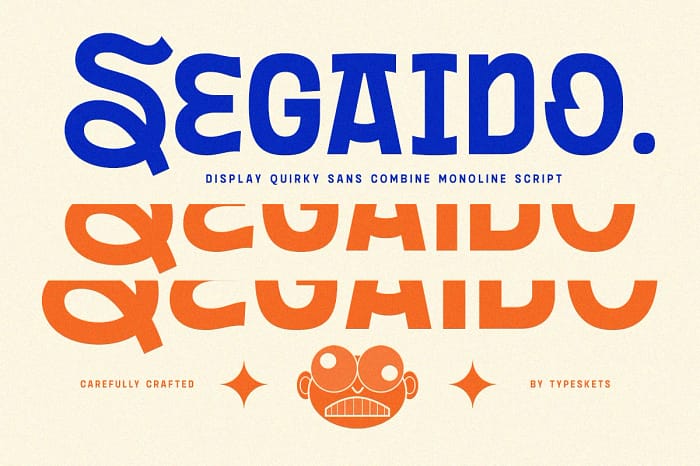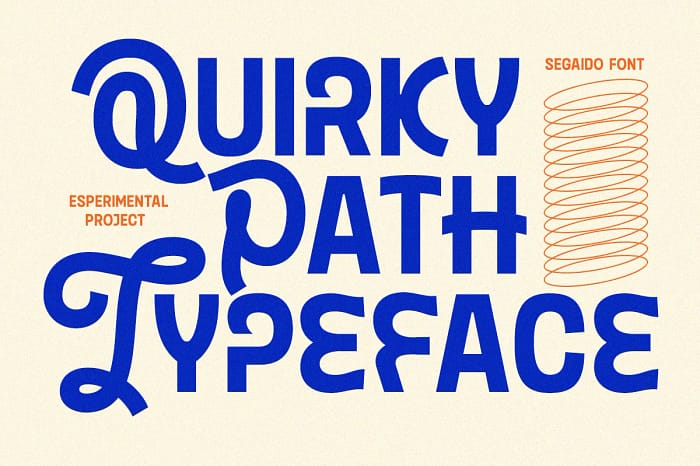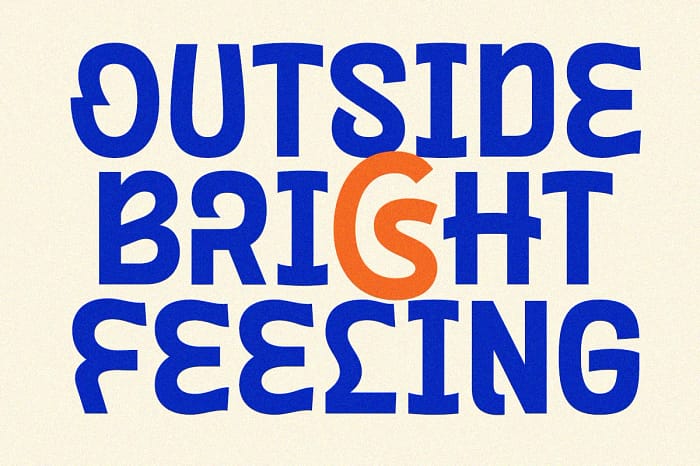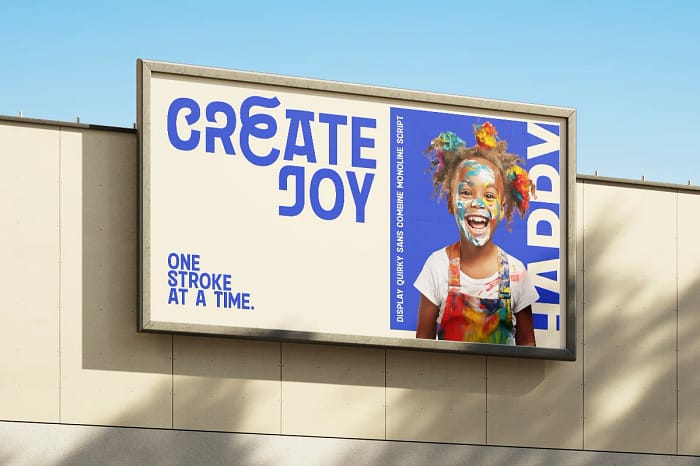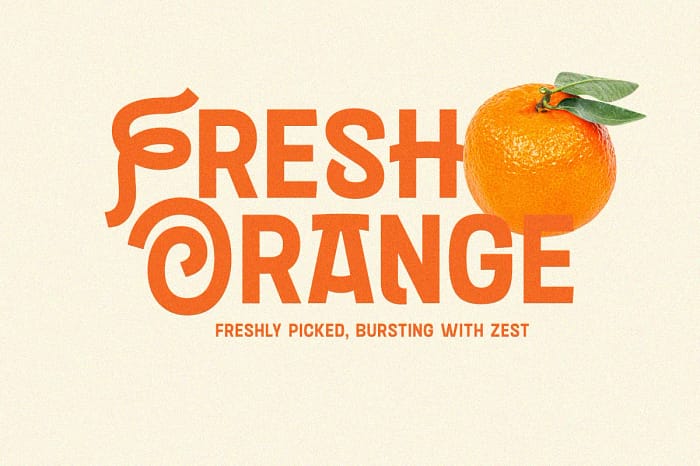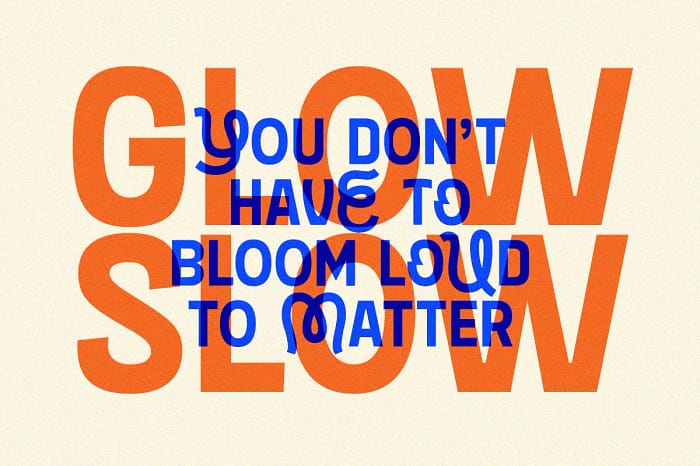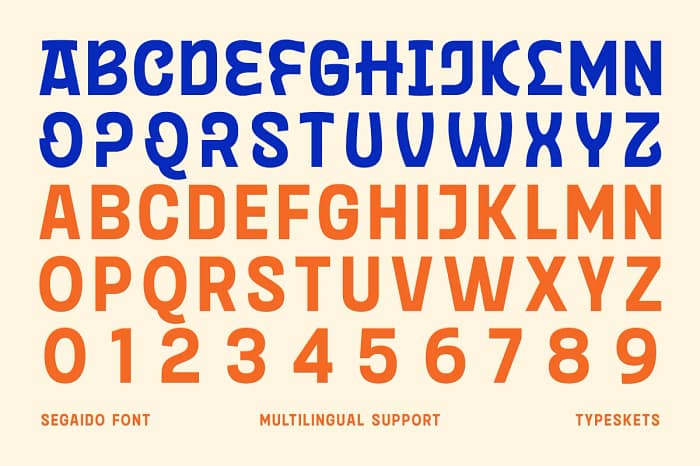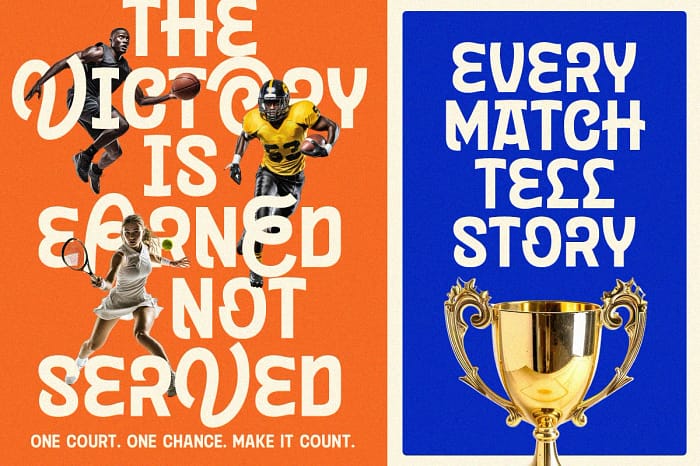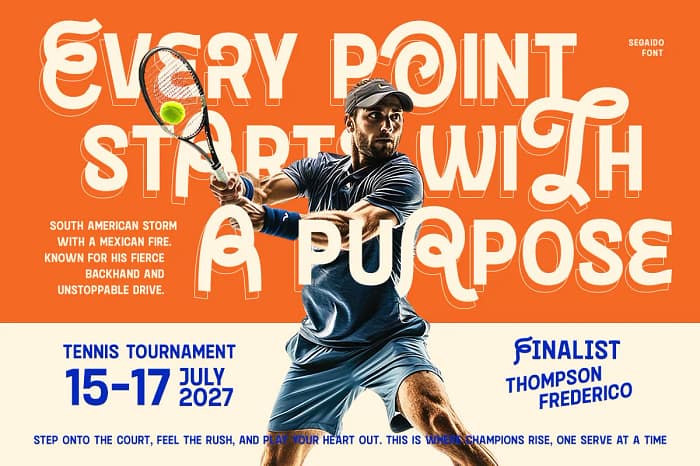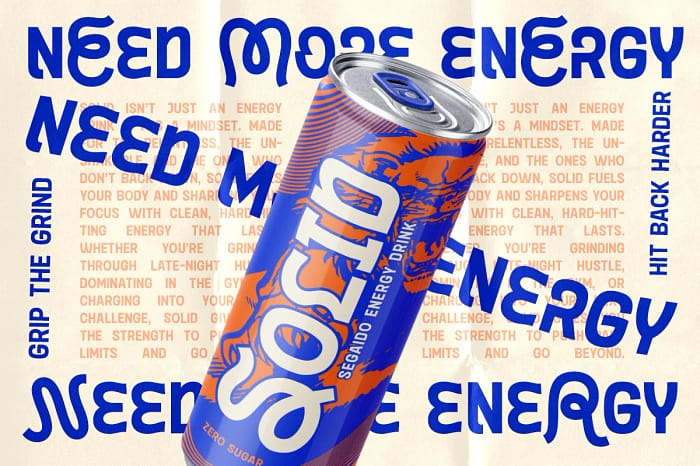
Segaido is a bold and quirky sans-serif display font that breaks the rules in the most playful way. With strong geometric roots and unexpected curves, Segaido delivers a retro-futuristic vibe inspired by Japanese pop culture and 80s visual energy. Each letterform is designed with personality, and its unique alternates give you the freedom to create fresh, experimental typography.
Whether you’re designing a poster, retro branding, album cover, or creative editorial project, Segaido brings a spark of fun, energy, and boldness. This font was made for creatives who want to stand out and take their design beyond the ordinary.
- All-caps alphabet
- Fun stylistic alternates for quirky combinations
- Music Posters & Album Covers
- Retro Branding & Packaging
- Magazine Headlines
- Signage & Logos
- Streetwear or Skate Culture Merch
Tips for Use: Mix and match the alternates to create a dynamic visual rhythm. Combine with vibrant colors and bold layouts for maximum impact.